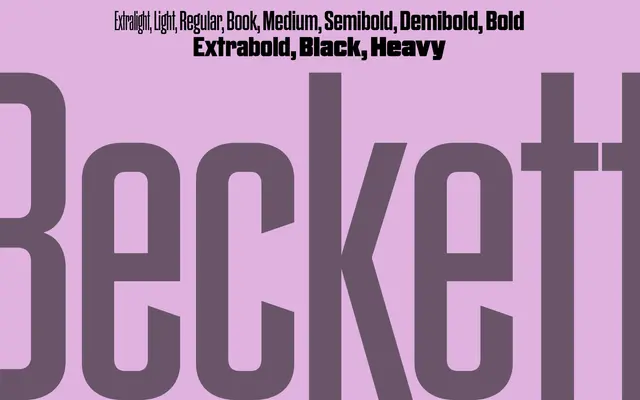
Beckett
A2-Type · 2009
A wood-type-derived grotesque originally cut for the Faber & Faber 'Samuel Beckett: Complete Works' series in 2009, expanded to 11 weights in 2017.
Originally commissioned for a specific Faber & Faber publishing project, the design draws on machine-cut wood type, giving it a hard, unmodulated edge suited to cover work and display settings. The family spans 11 weights from Extralight to Heavy, with a companion Beckett Round subfamily. There are no italics, keeping the family focused on upright display and editorial use.
Rooted in machine-cut wood type traditions, Beckett is a sans-serif with hard, unmodulated edges characteristic of industrial grotesques derived from nineteenth-century wood type. The absence of italics and rounded variants suggests a display-leaning grotesque lineage.